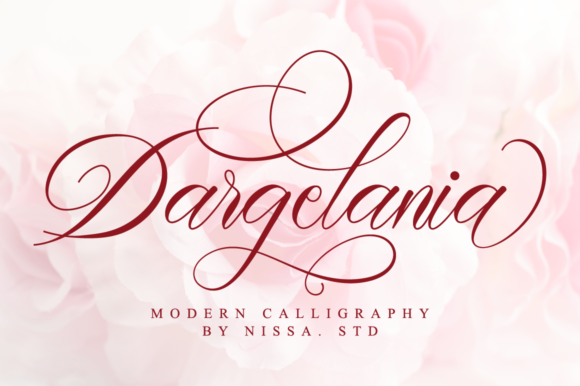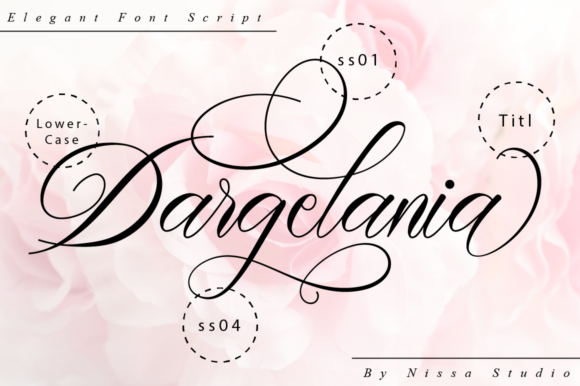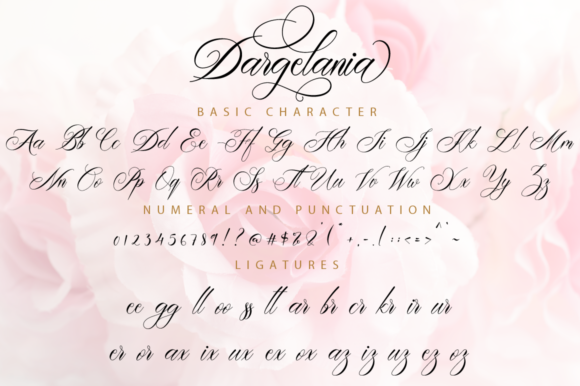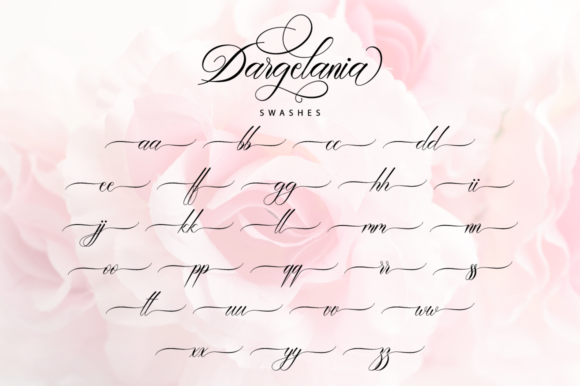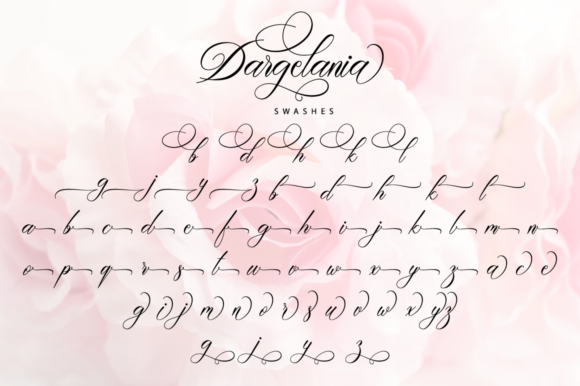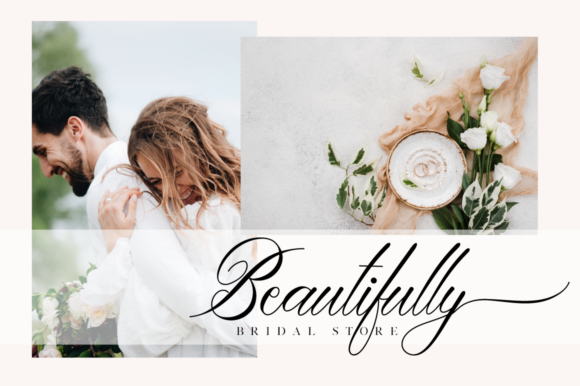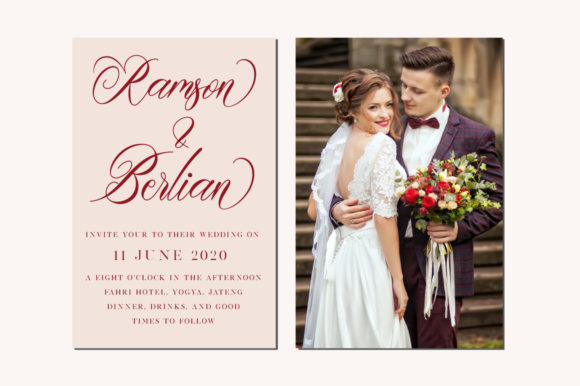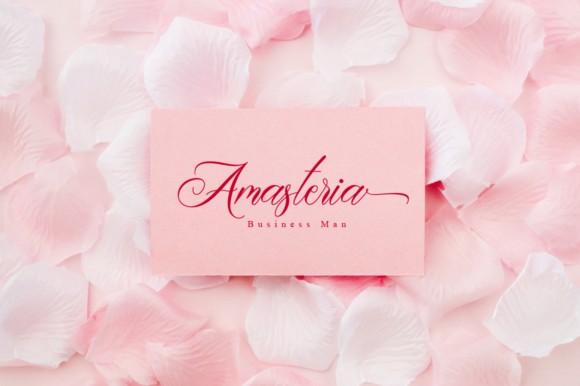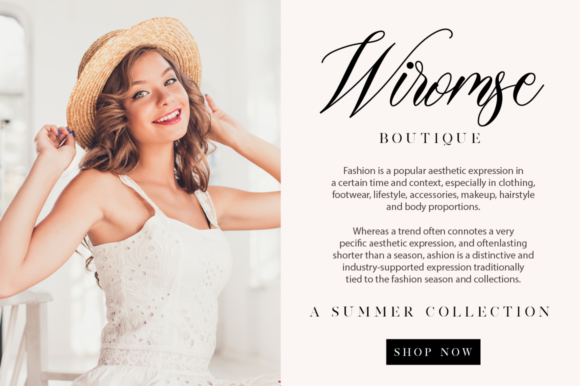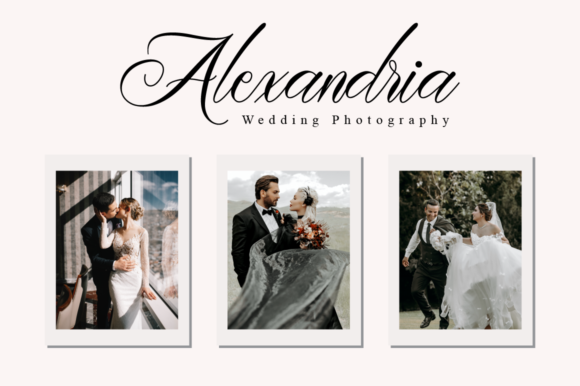
Dargelania Font
About Dargelania Font
Dargelania feels equally charming and elegant. This font is PUA encoded which means you can access all of the glyphs and swashes with ease! It features a varying baseline, smooth lines, gorgeous glyphs and stunning alternates.
Fall in love with Dargelania’s incredibly versatile style and use it to create gorgeous wedding invitations, beautiful stationary art, eye-catching social media posts, and much more!